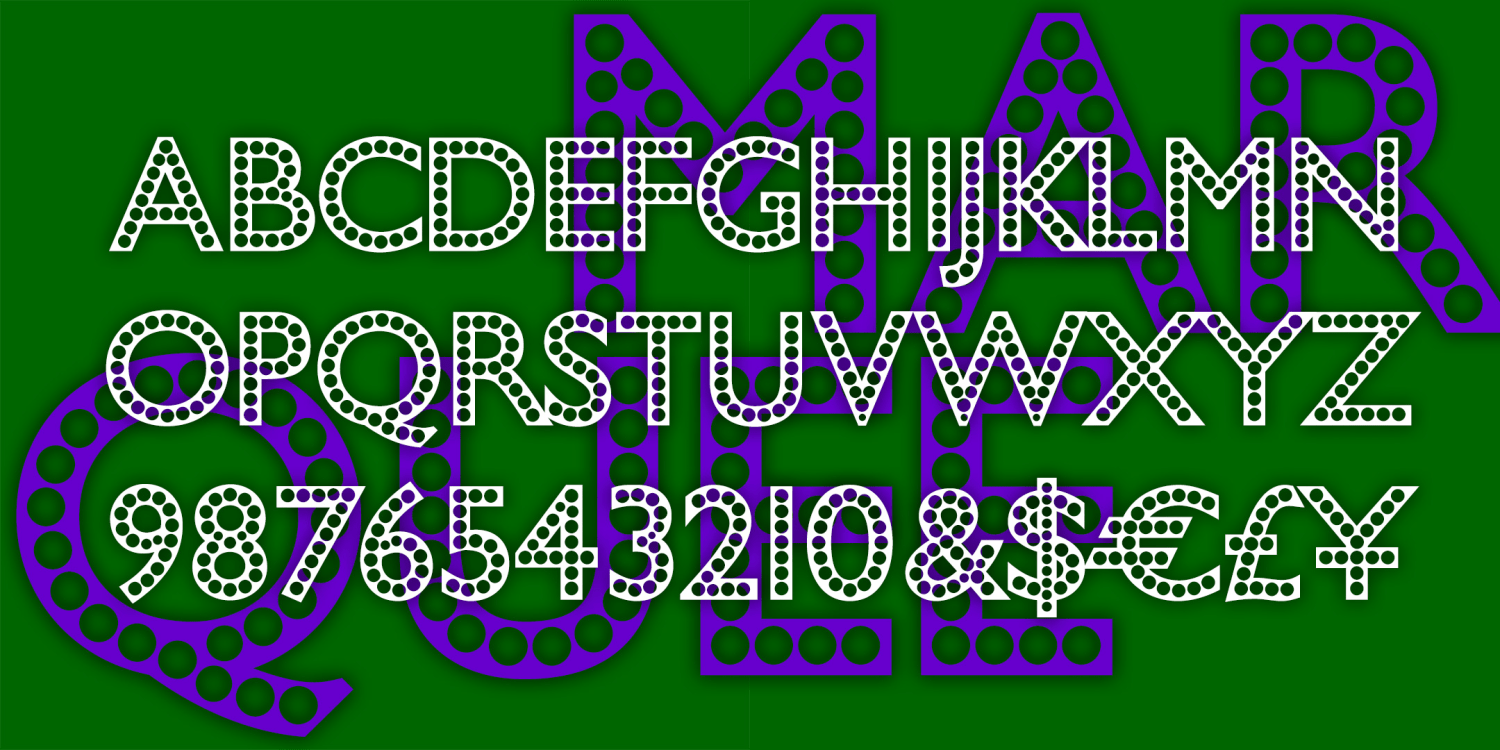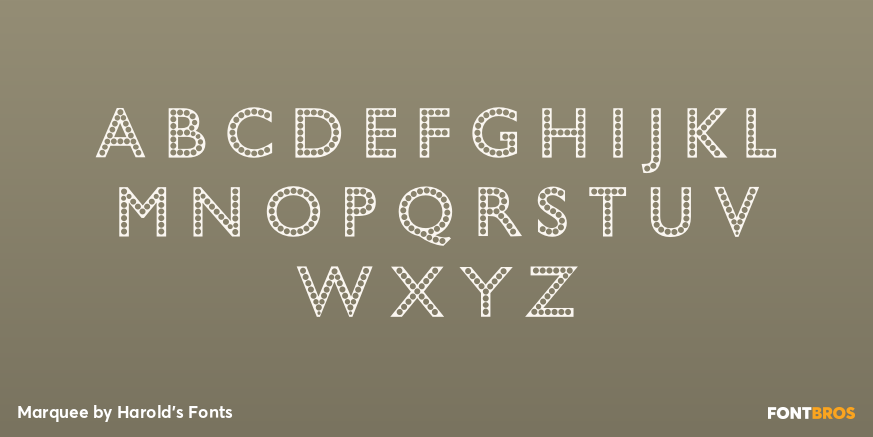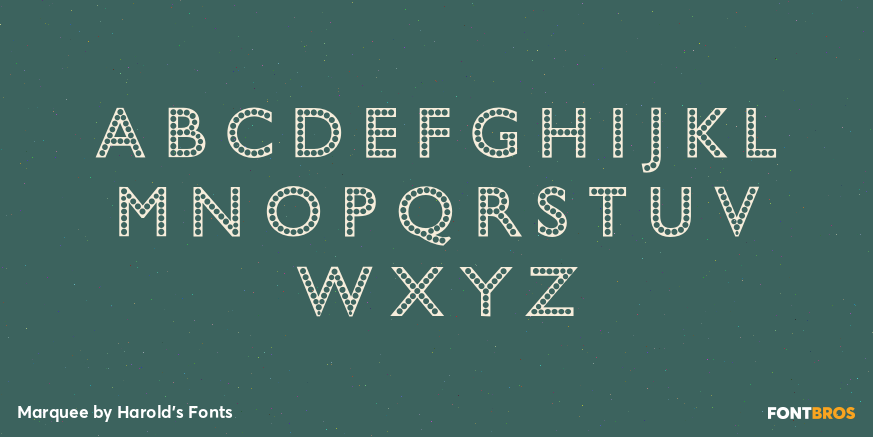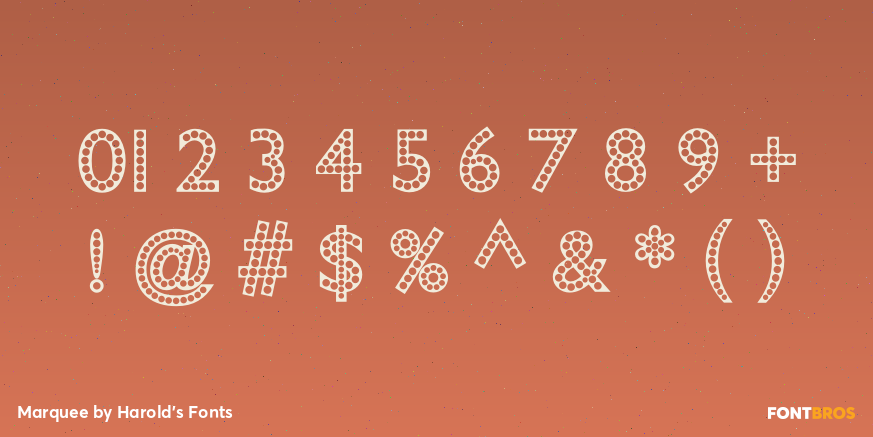
Marquee
MARQUEE is one half of the old music-hall team of Bead Chain & Marquee.
MARQUEE offers your name in lights. Inspired by a book jacket from the early 20th century, I've used the stately letter forms of Gill Sans as my guide, although most letters had to be reshaped to fit the beads.